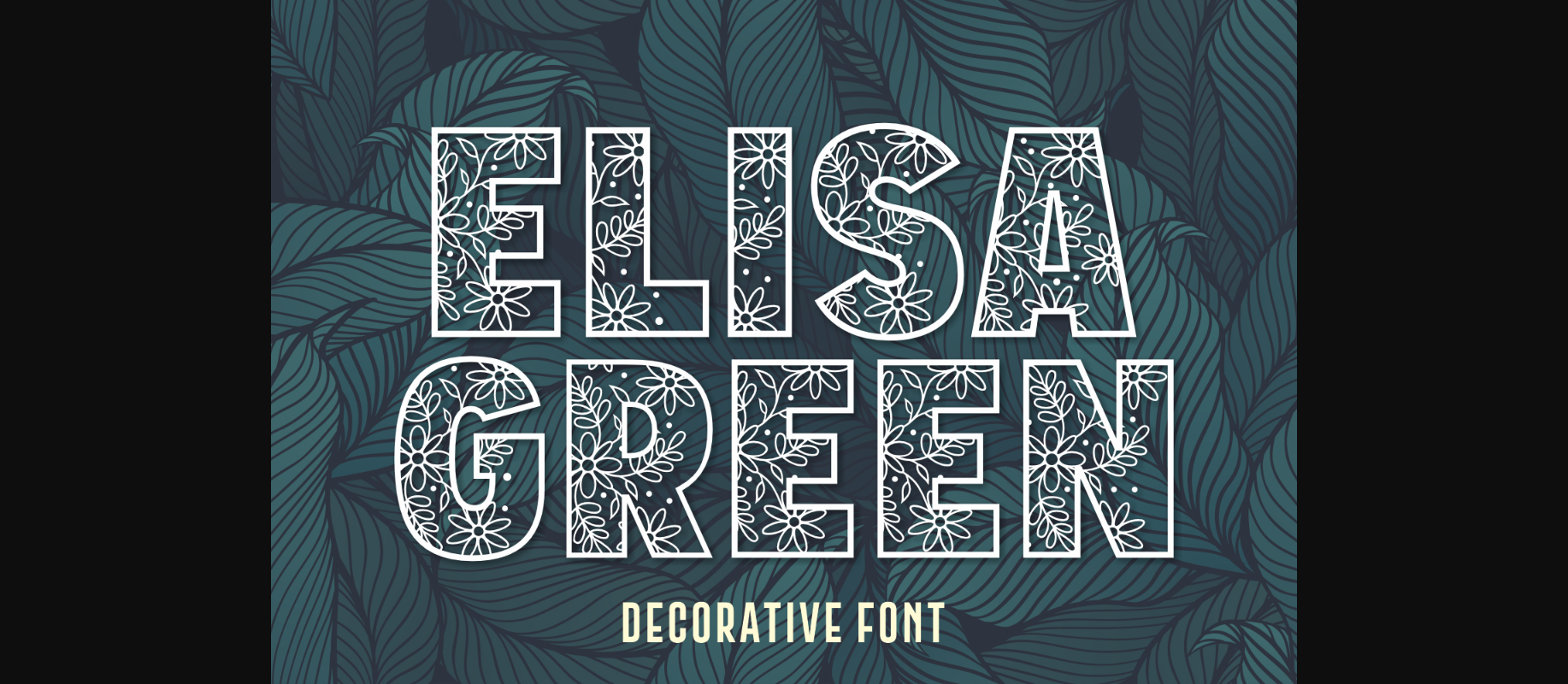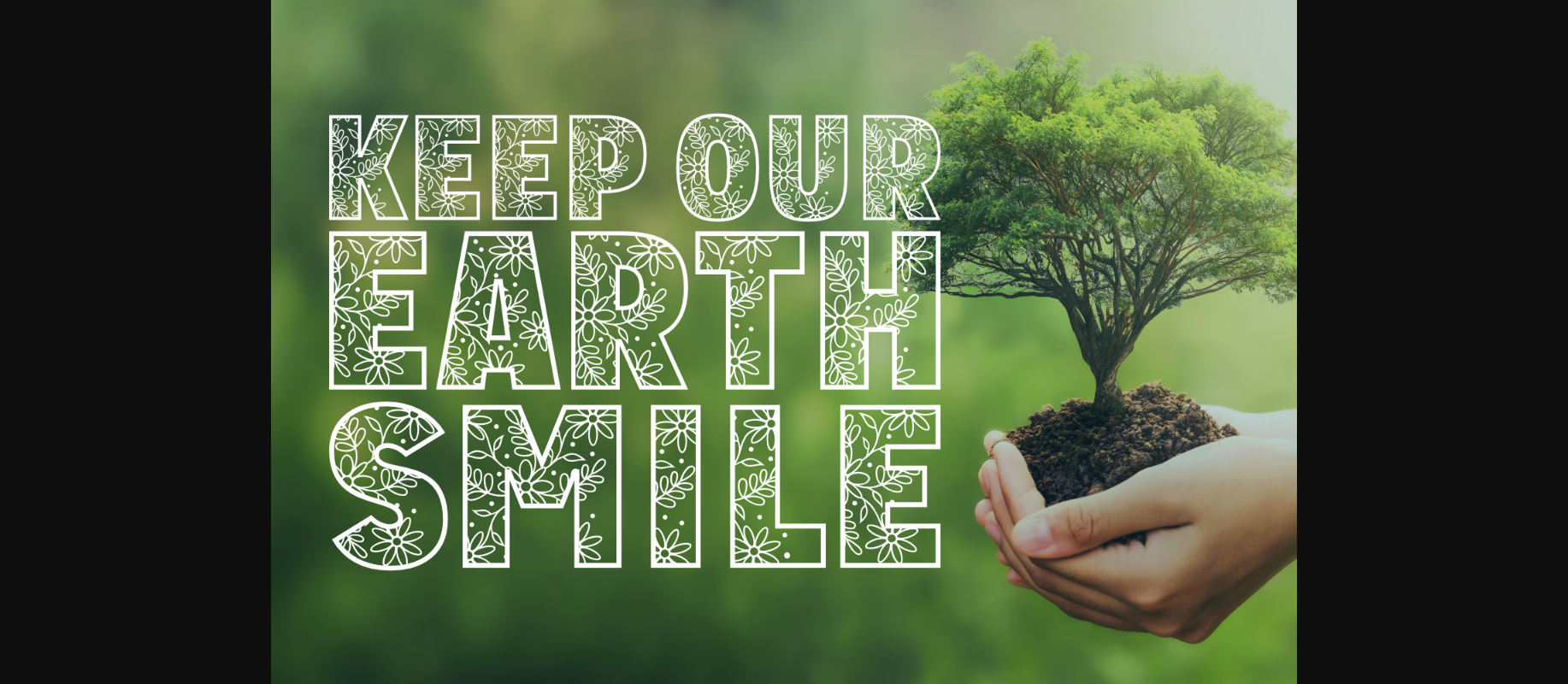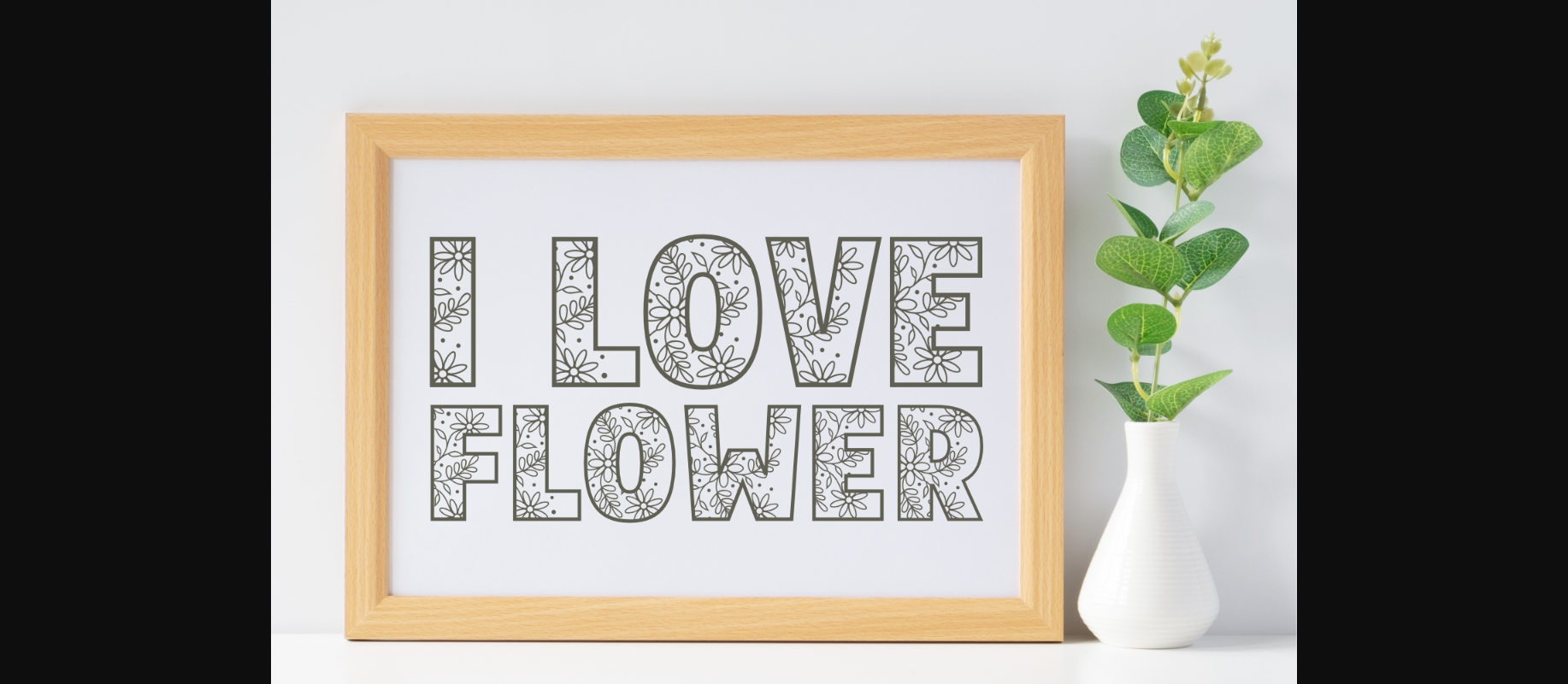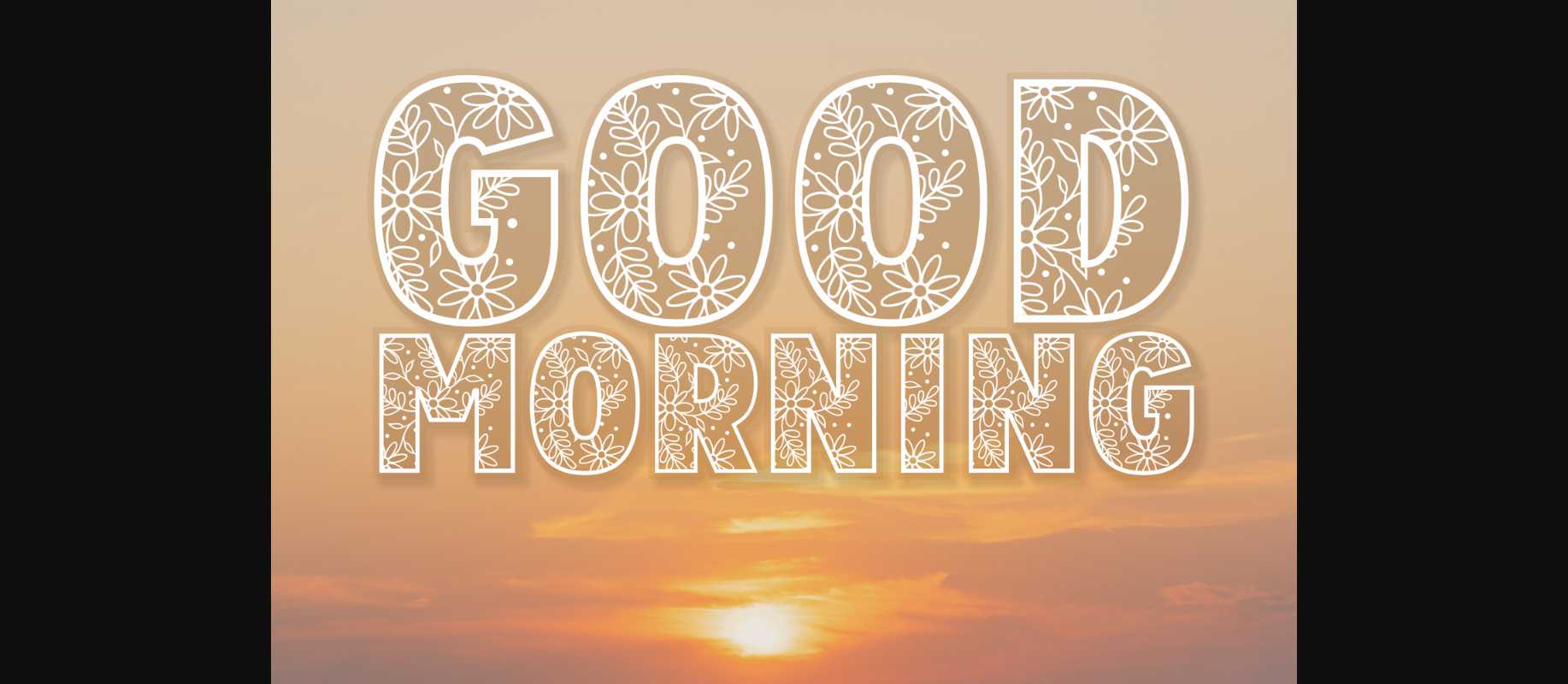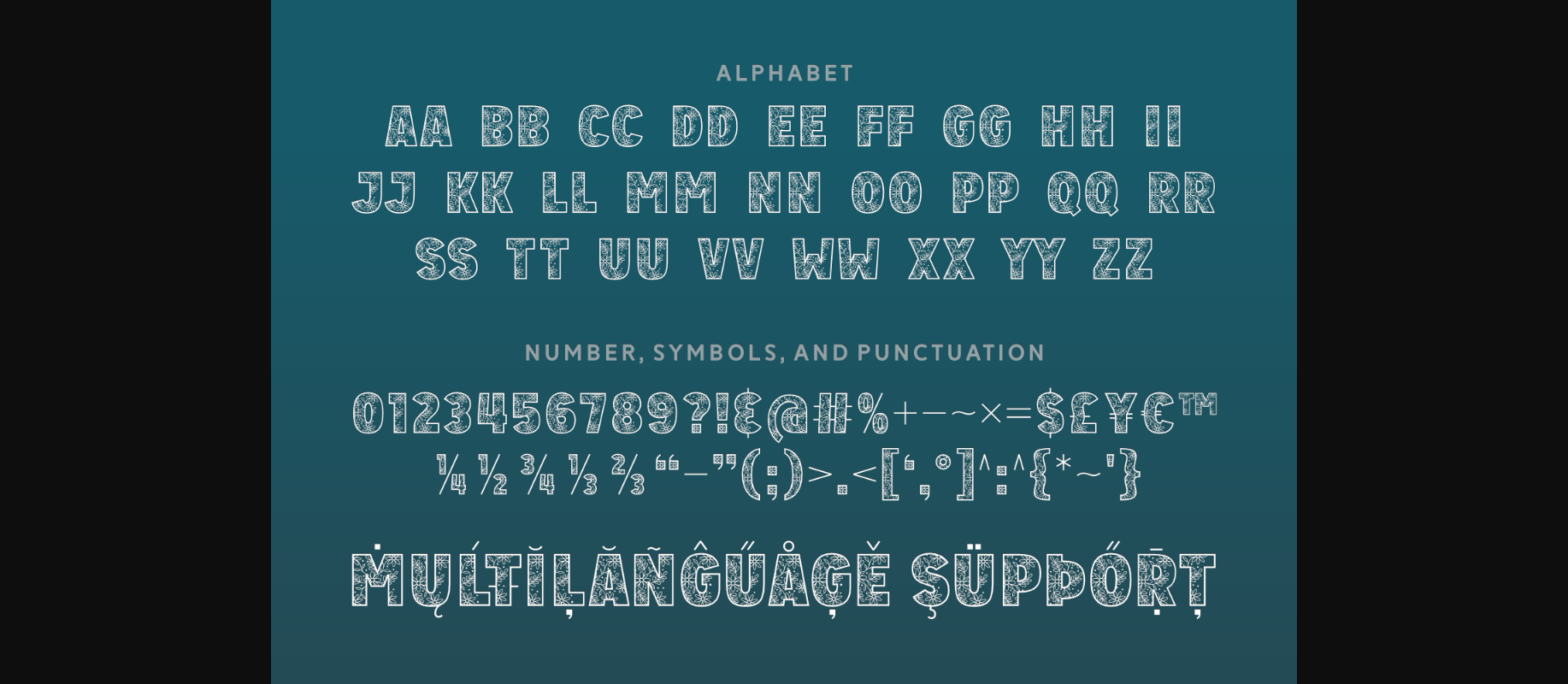
Elisa Green Font
About Elisa Green Font
Elisa Green is a beautiful decorative font with a very springlike touch. Each character features lovely flowers designs and leaves. Use this lovely spring-themed font to create spring cards, nature decorations, headlines, magazines, quotes, t-shirts, home decorations, etc.